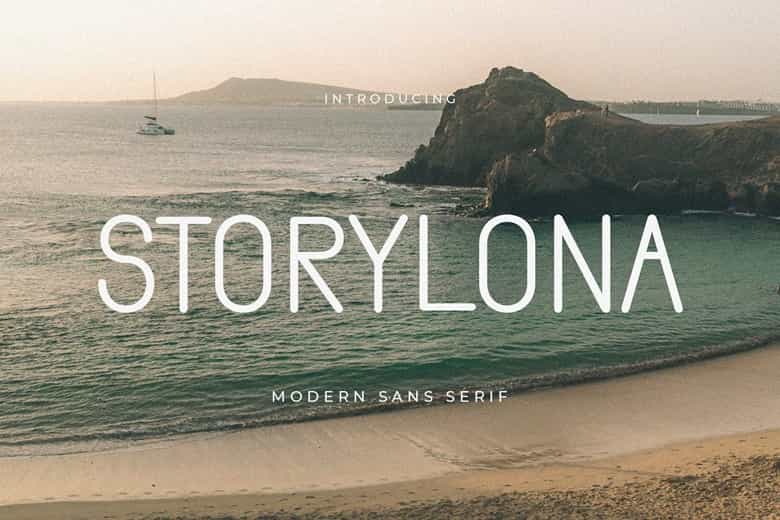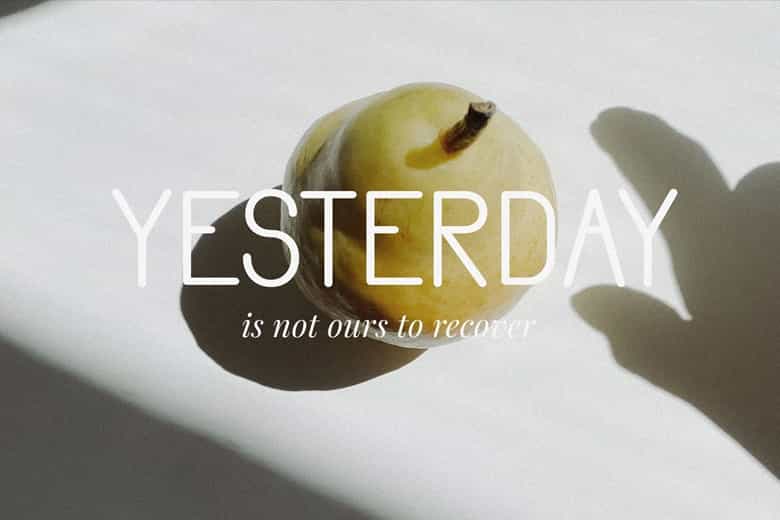
Storylona is a clean and elegant sans serif font which was designed to complement a number of different designs. This font can be applied for creating titles, invitations, letters, and other products of the kind.